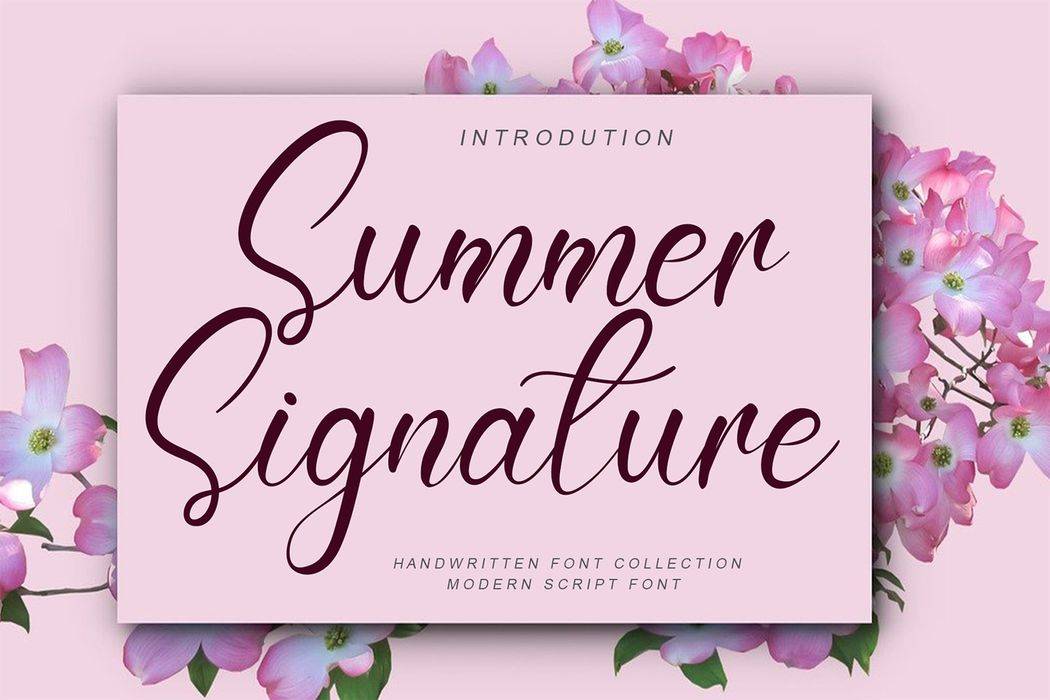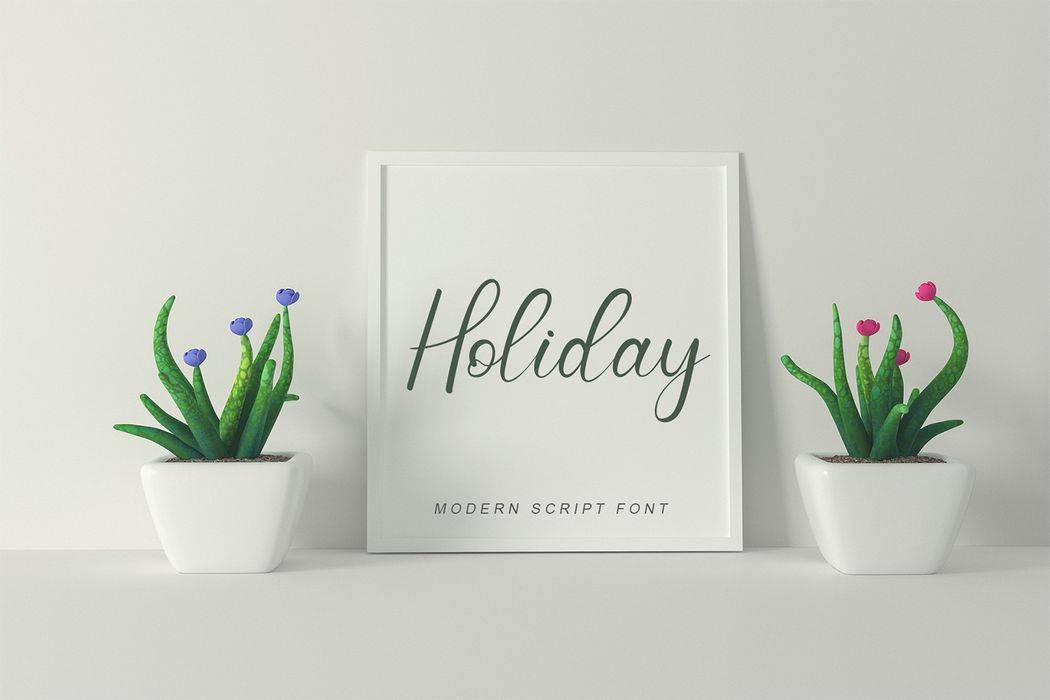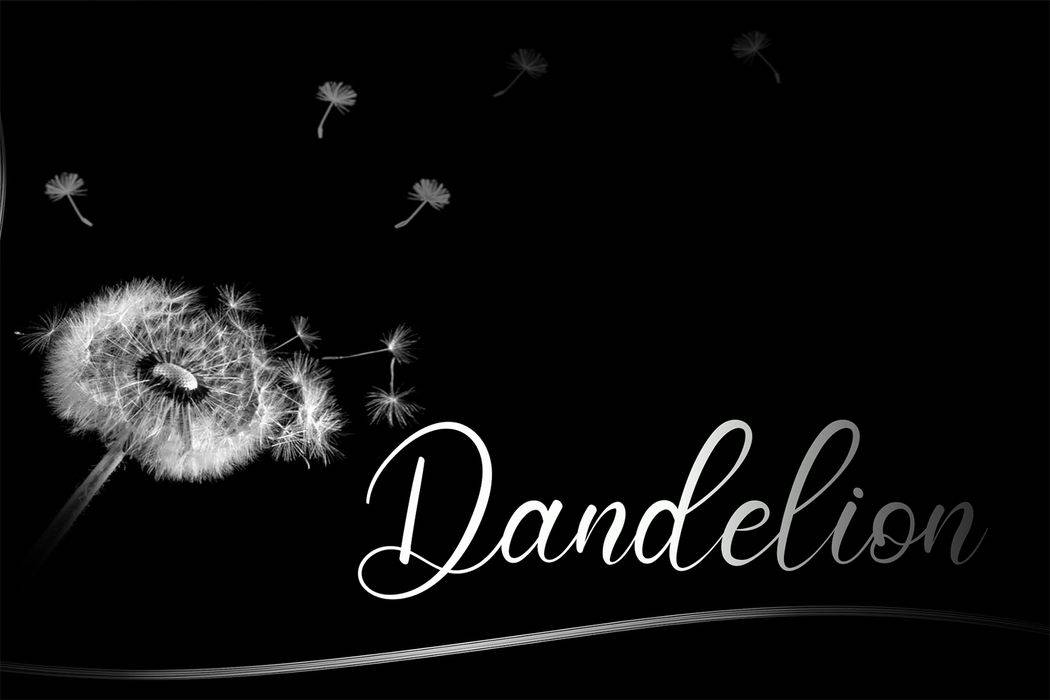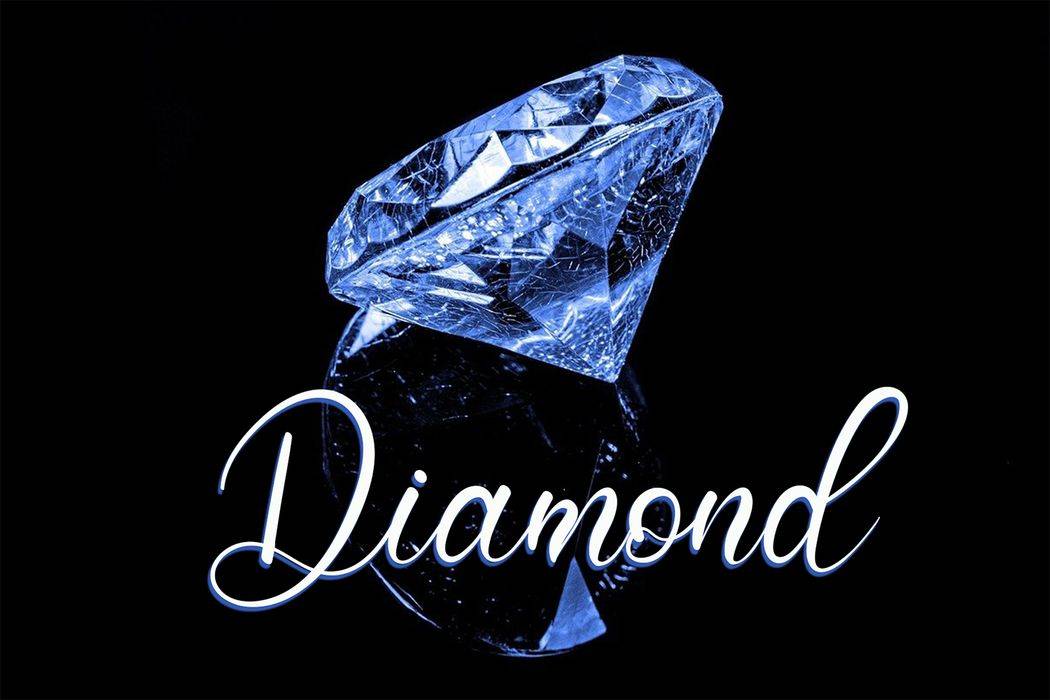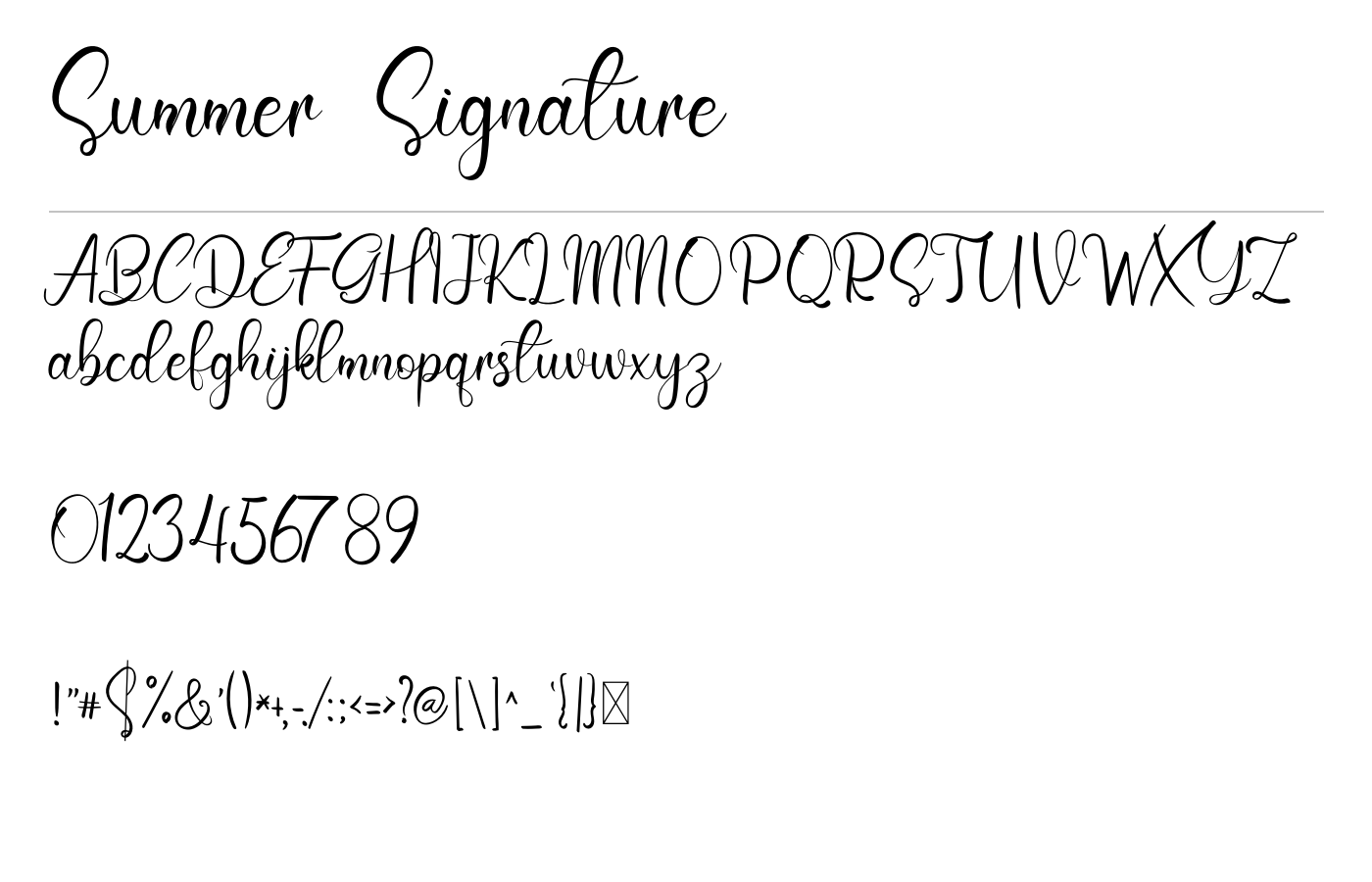
Summer Signature is a delicate and elegant script font that mimics natural handwriting with smooth, flowing strokes and charming loops. Its light weight and airy style make it perfect for adding a personal, feminine touch to creative projects such as wedding invitations, branding, and greeting cards. This font's graceful appearance conveys warmth and sophistication, making it ideal for designs that seek a refined yet approachable feel.
Summer Signature Font
About Summer Signature Font